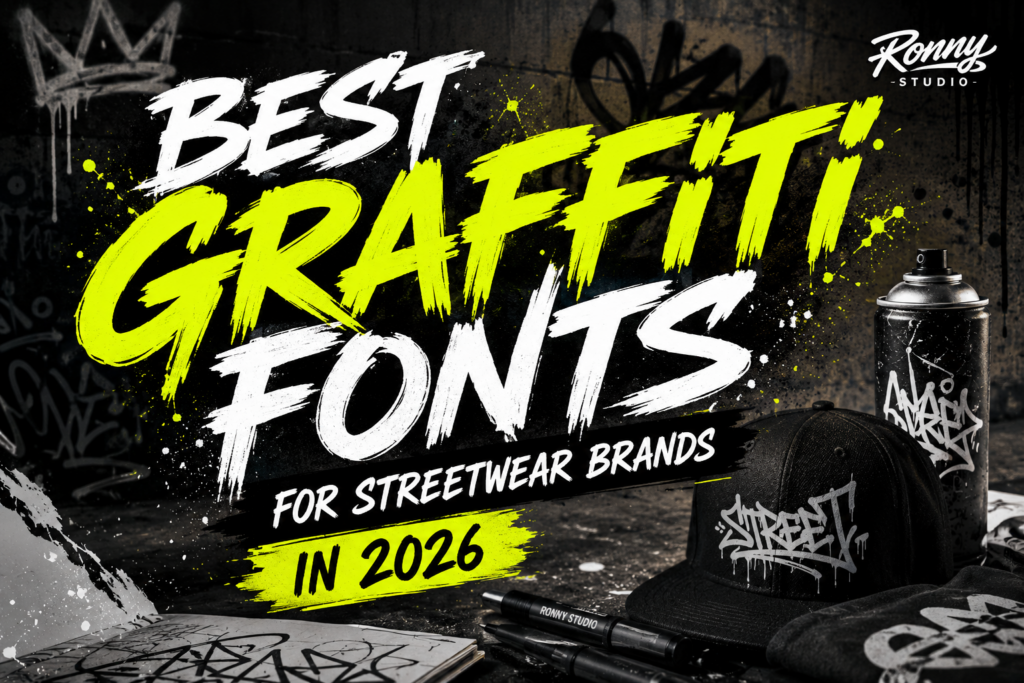
Best Graffiti Fonts for Streetwear Brands in 2026
Streetwear branding is more competitive than ever. Every week, new clothing labels, skate brands, and urban lifestyle businesses launch with similar visual styles. One of the biggest reasons many brands fail to stand out is choosing typography that looks generic and forgettable.
A strong graffiti font can instantly communicate attitude, authenticity, and street culture. The right typeface helps create a memorable logo, impactful apparel designs, and social media graphics that resonate with your audience.
In this article, we’ll explore what makes a great streetwear font and showcase some of the best graffiti-inspired typefaces from Ronny Studio.
Why Typography Matters for Streetwear Brands
Typography is often the first visual element customers notice. Before reading your message, they experience your font.
The best streetwear brands use typography to express:
• Authenticity
• Rebellion
• Creativity
• Urban culture
• Youth energy
A generic font can make your brand blend in, while a distinctive graffiti typeface can create a strong identity that customers remember.
Featured Font: Youth Crew
graffiti street font
Youth Crew – Street Hardcore Display Font
Youth Crew is inspired by hardcore punk culture, underground music scenes, and authentic street aesthetics. Its bold letterforms make it perfect for clothing brands, posters, album covers, and streetwear logos.
Best For:
• Streetwear brands
• Skate apparel
• Music merchandise
• Event posters
• Urban branding
Characteristics of a Great Graffiti Font
Not all graffiti fonts are created equal. When selecting a font for your brand, consider:
Legibility
Your audience should be able to recognize your brand name quickly.
Personality
A font should communicate a unique mood and attitude.
Versatility
The font should work across apparel, packaging, websites, and social media.
Memorability
Strong typography helps customers remember your brand long after they’ve seen it.
Featured Font: Thrashlane
Thrashlane street brush font bold graffiti style typeface for logo, poster, apparel, and streetwear design
Thrashlane – Street Brush Font
Thrashlane combines hand-painted energy with modern street culture. Its rough brush texture creates movement and intensity that works exceptionally well for youth-focused brands.
Perfect For:
• Clothing labels
• Action sports brands
• Music festivals
• YouTube thumbnails
• Promotional graphics
Common Typography Mistakes Streetwear Brands Make
Using Overused Fonts
Many brands rely on fonts that have been used thousands of times.
Ignoring Brand Personality
A luxury serif font rarely fits an aggressive urban brand.
Following Trends Blindly
Trends come and go. A strong brand identity remains recognizable for years.
Using Too Many Fonts
Consistency helps establish a memorable visual identity.
Featured Font: Nofex
Expanded Sans Serif
Nofex – Urban Display Typeface
Nofex offers a modern street-inspired look while maintaining strong readability. It’s ideal for brands that want an edgy appearance without sacrificing professionalism.
Recommended For:
• Fashion branding
• Logo design
• Social media campaigns
• Packaging
• Promotional materials
How to Choose the Right Graffiti Font
Before selecting a typeface, ask yourself:
1. Who is your target audience?
2. What emotion should your brand communicate?
3. Will the font work across multiple platforms?
4. Does the font help differentiate your brand from competitors?
The answers will help narrow your options and guide your branding decisions.
Final Thoughts
Typography is one of the most powerful branding tools available. Whether you’re launching a new streetwear label or refreshing an existing identity, choosing the right graffiti font can significantly improve your brand’s impact.